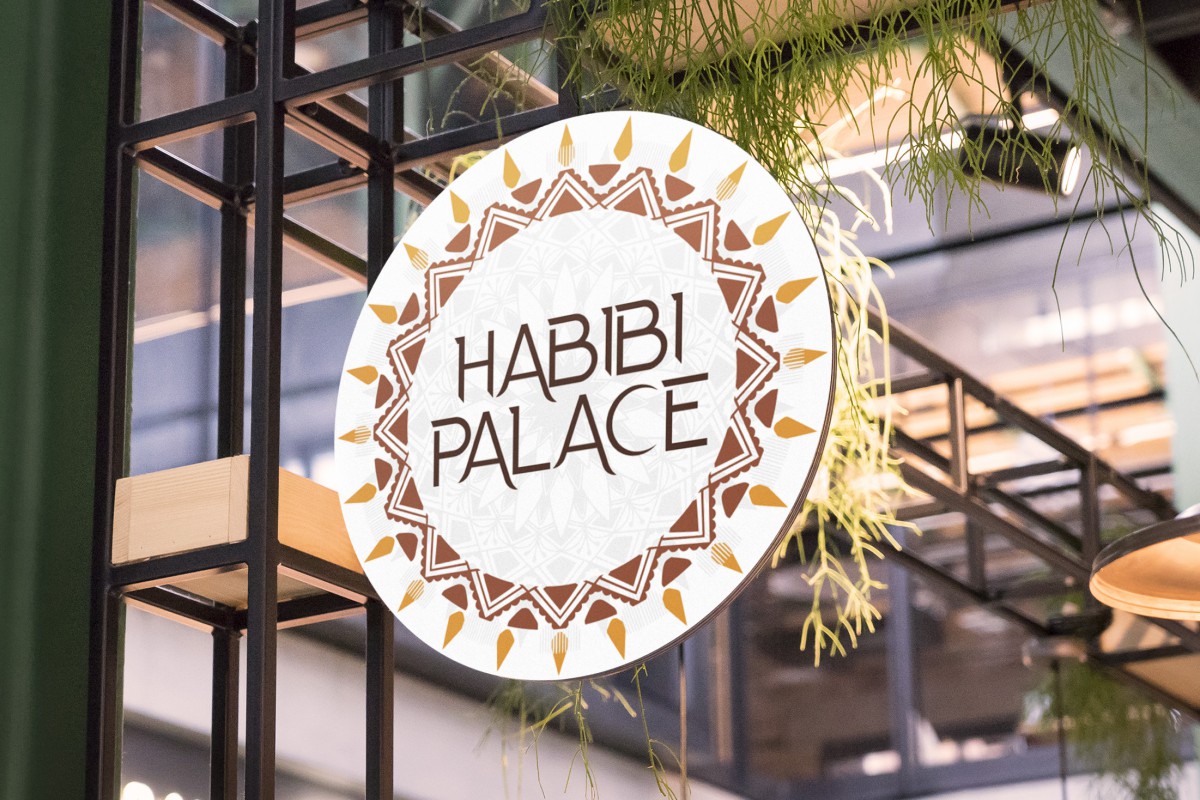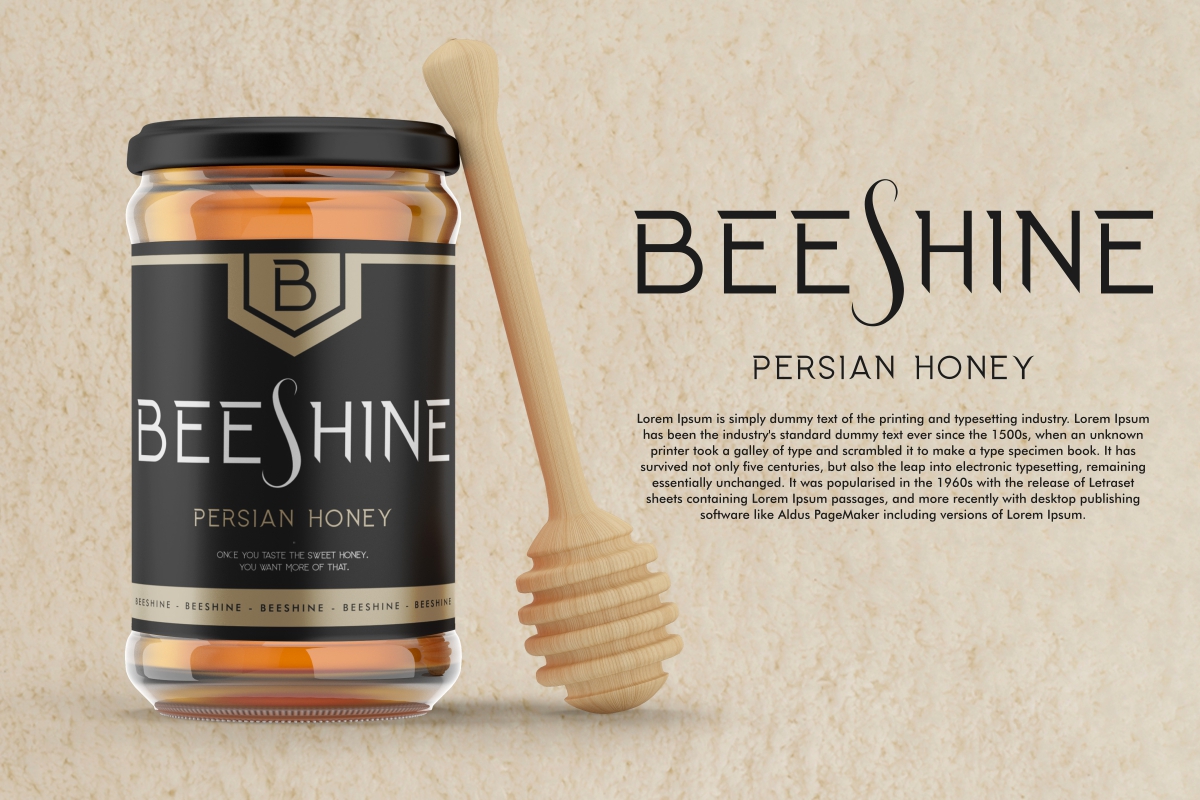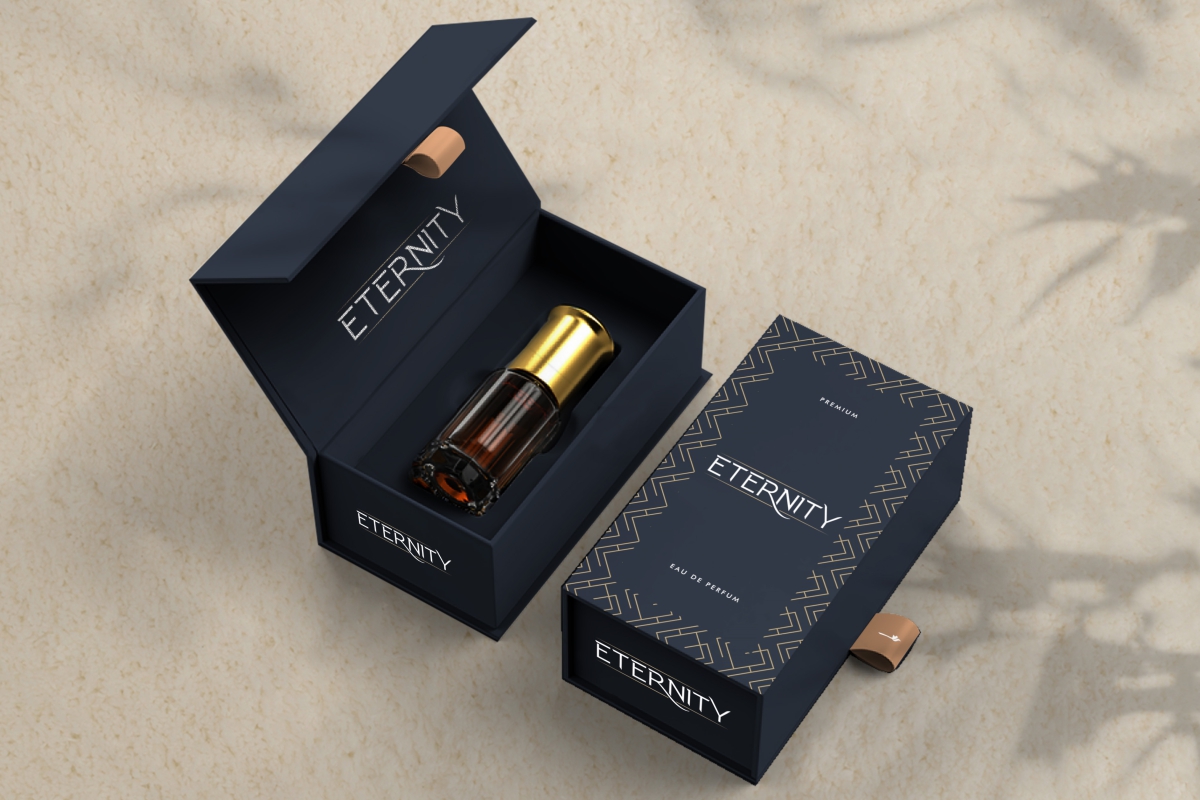
Persian Sword Font
Persian Sword Sans Serif Font
This is an elegant modern sans display font with unique ligature and alternative characters . The character has unique style that brings positive energy in every curve of the line and is easy to read. it will be amazing for any project : branding, products, healthy, fashion and more!
Persian Sword Font includes full set of ALLCAPS Basic Characters, Numerals and Punctuation. This font would be great to use for any project that requires a support multi language custom look!